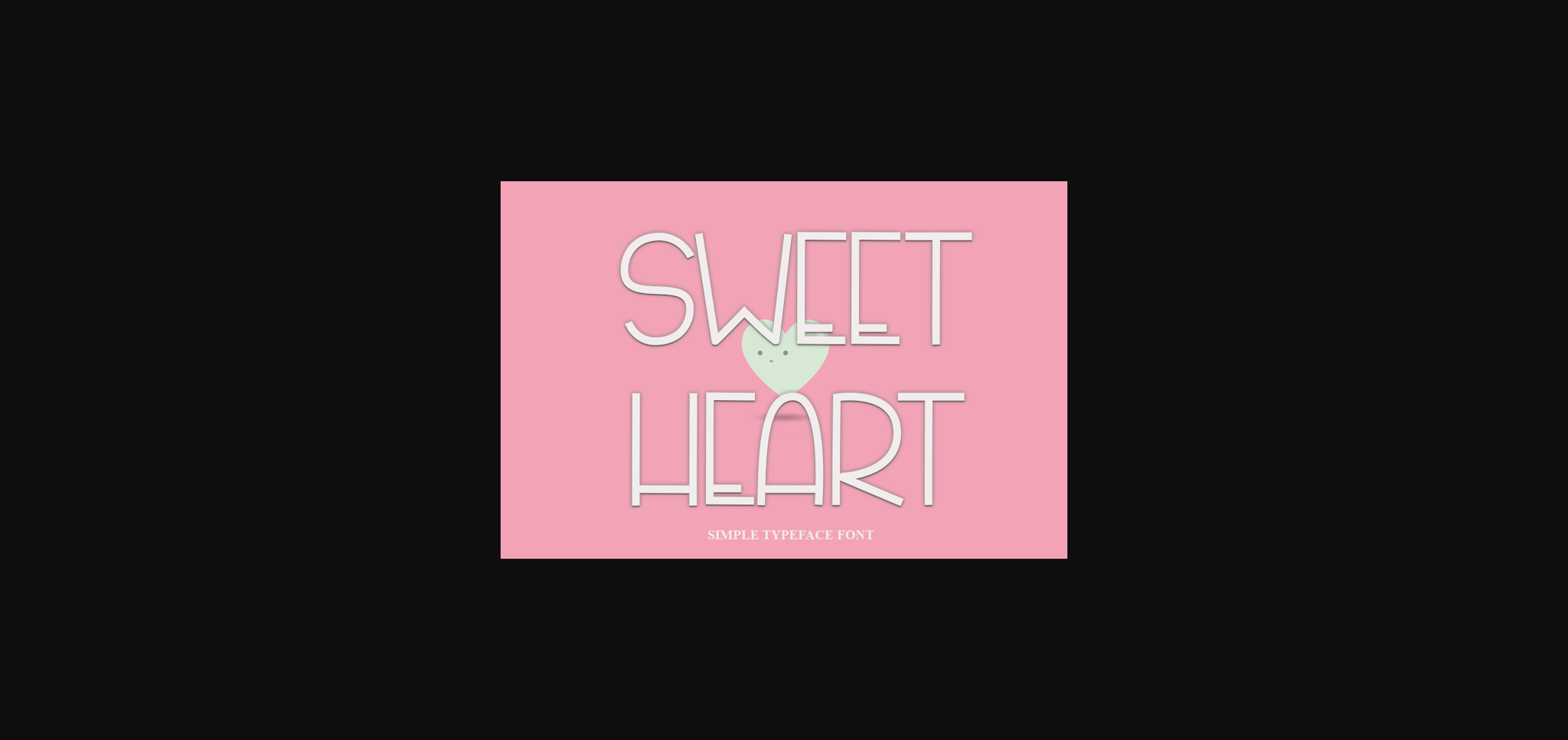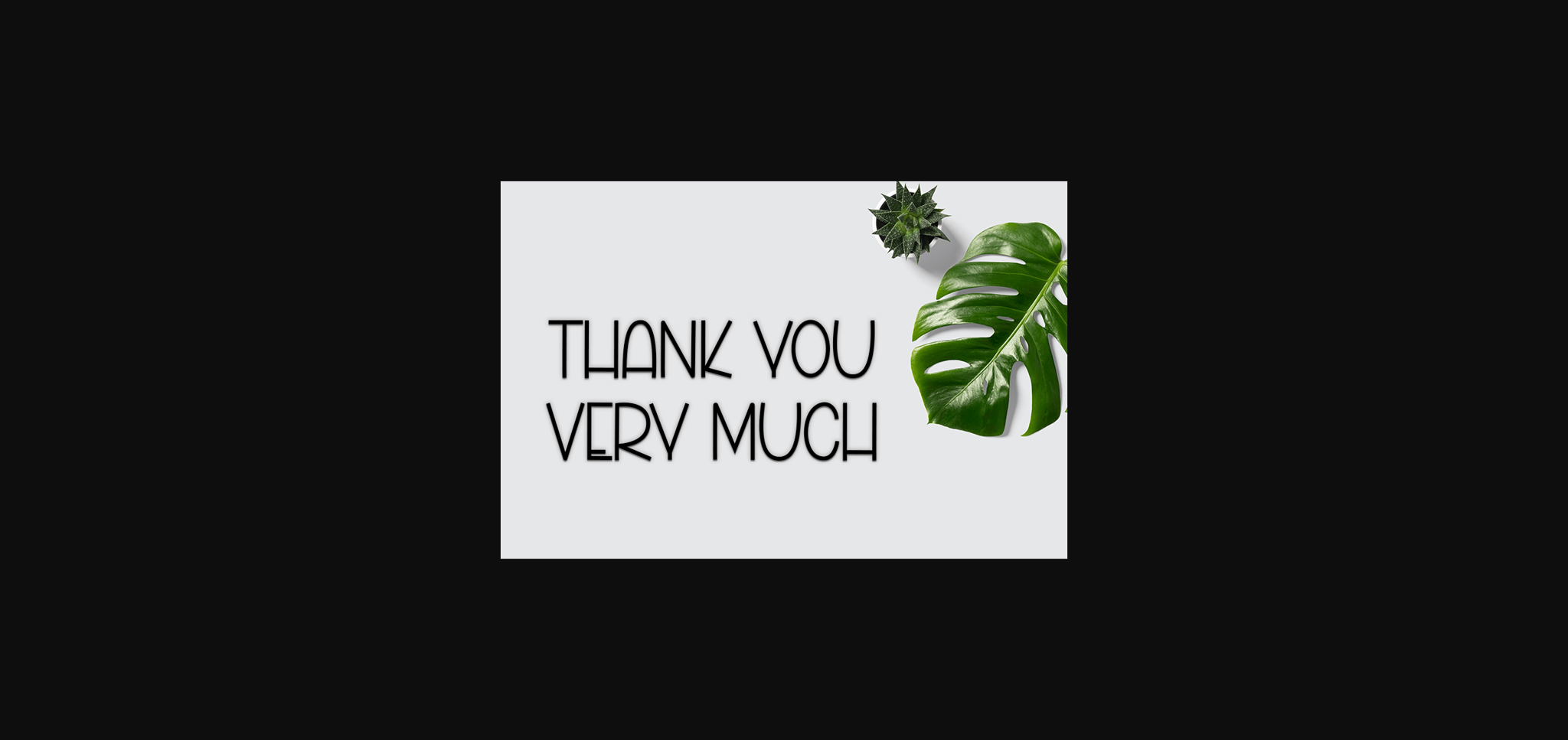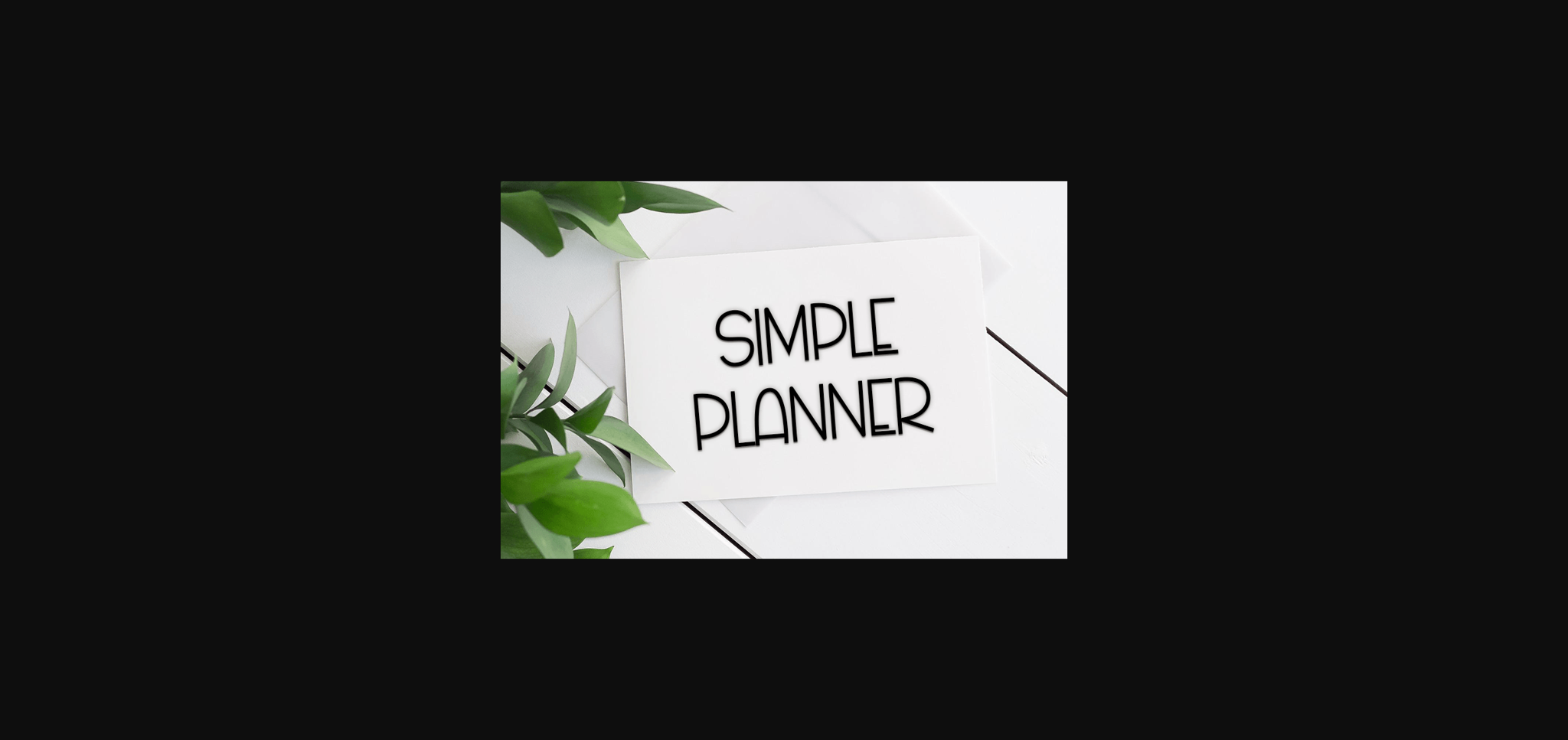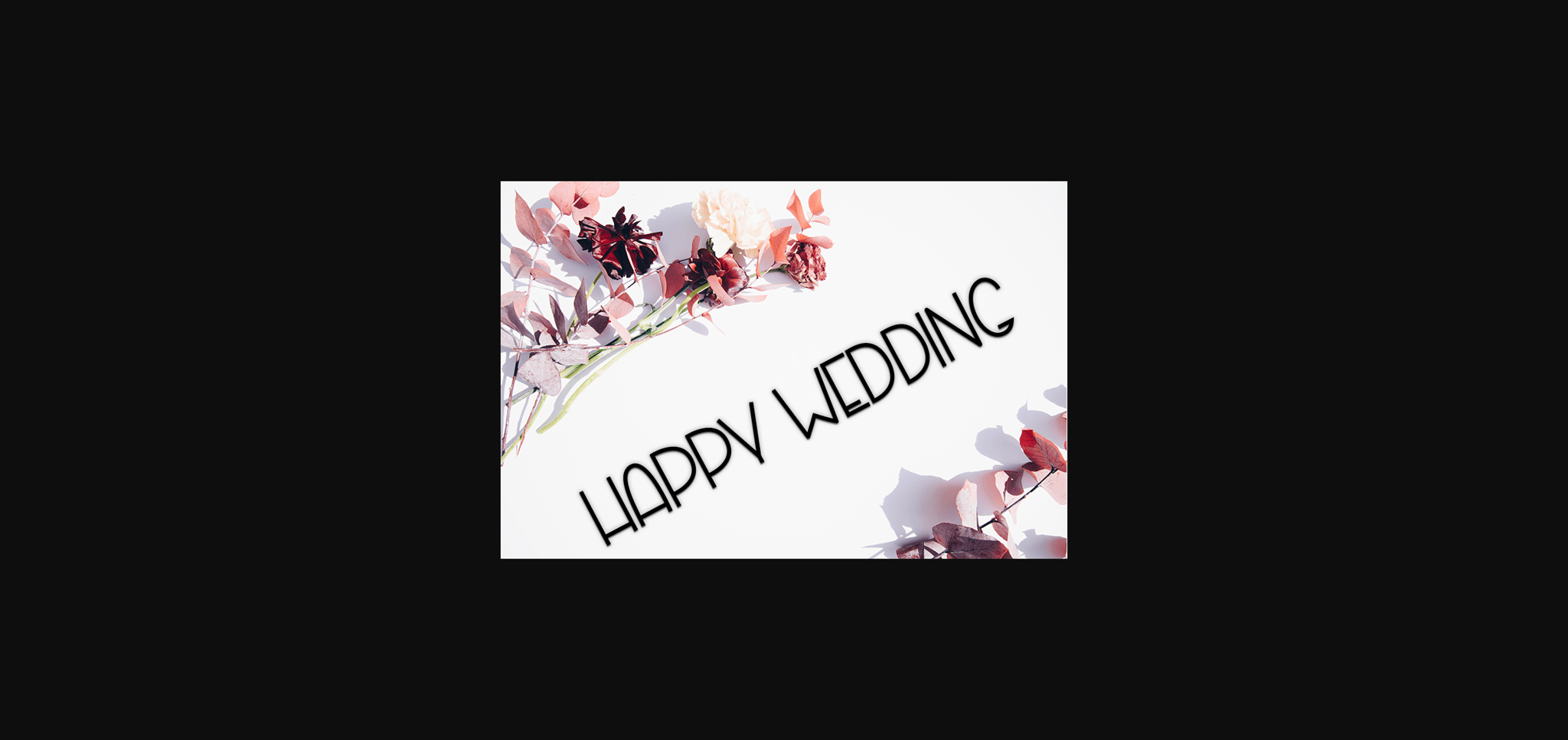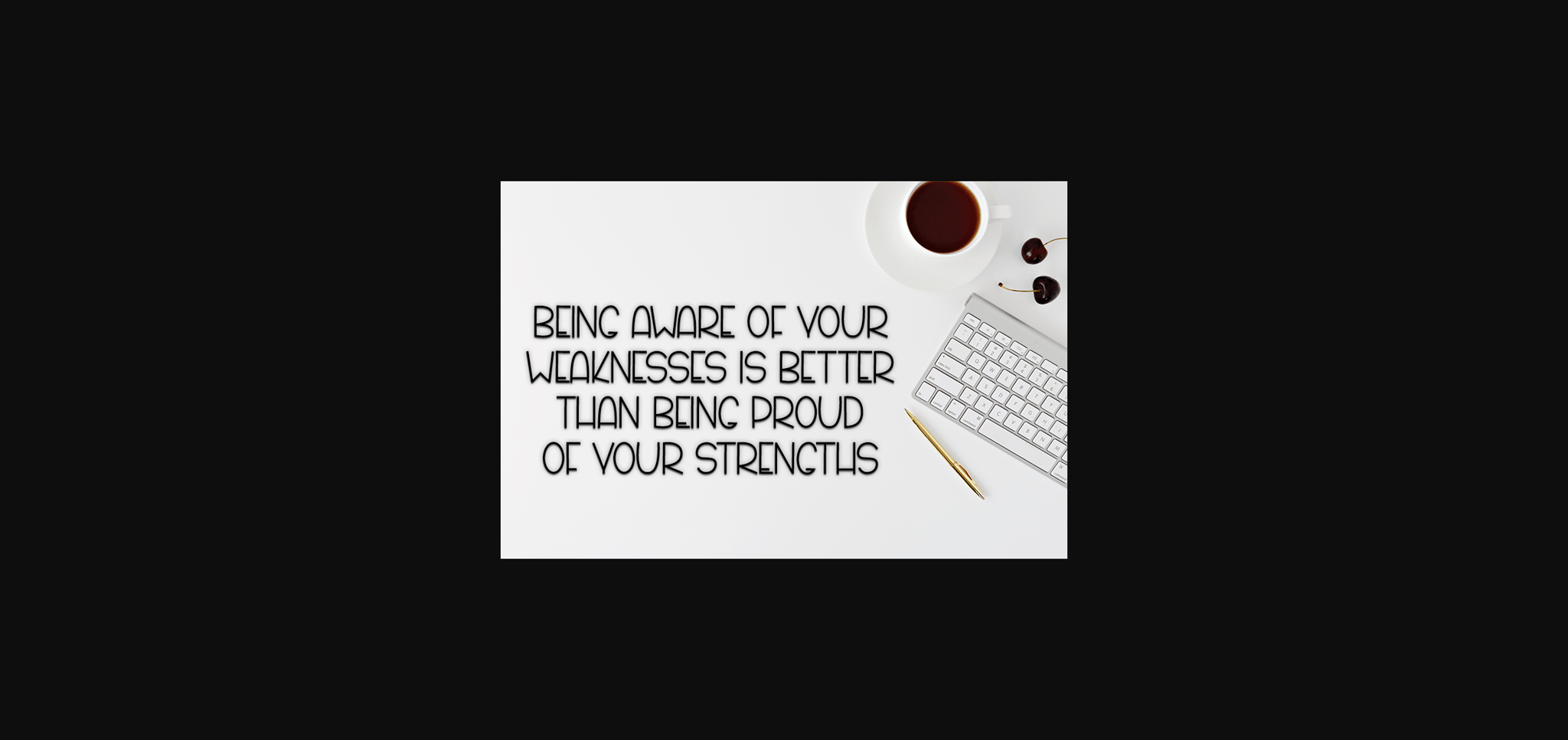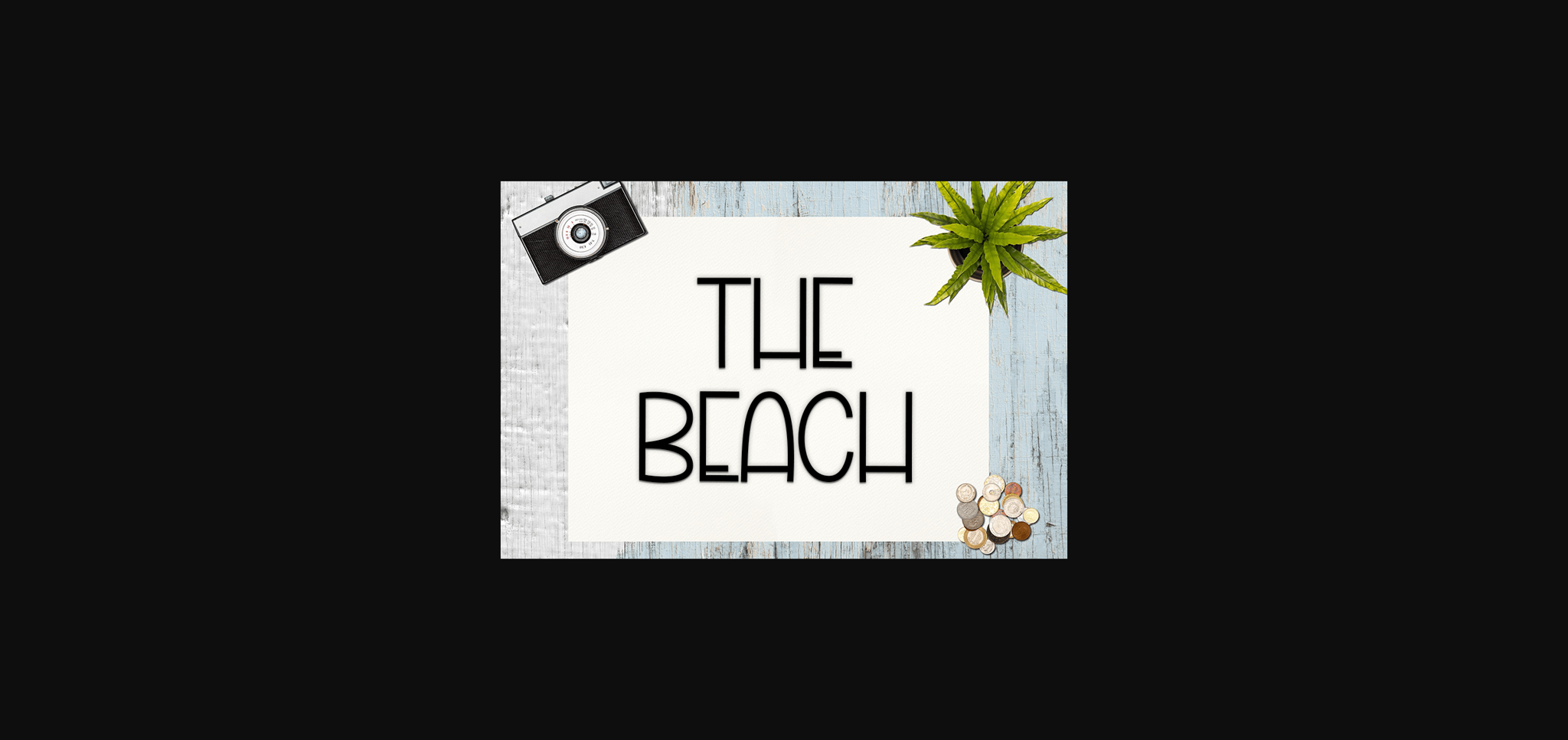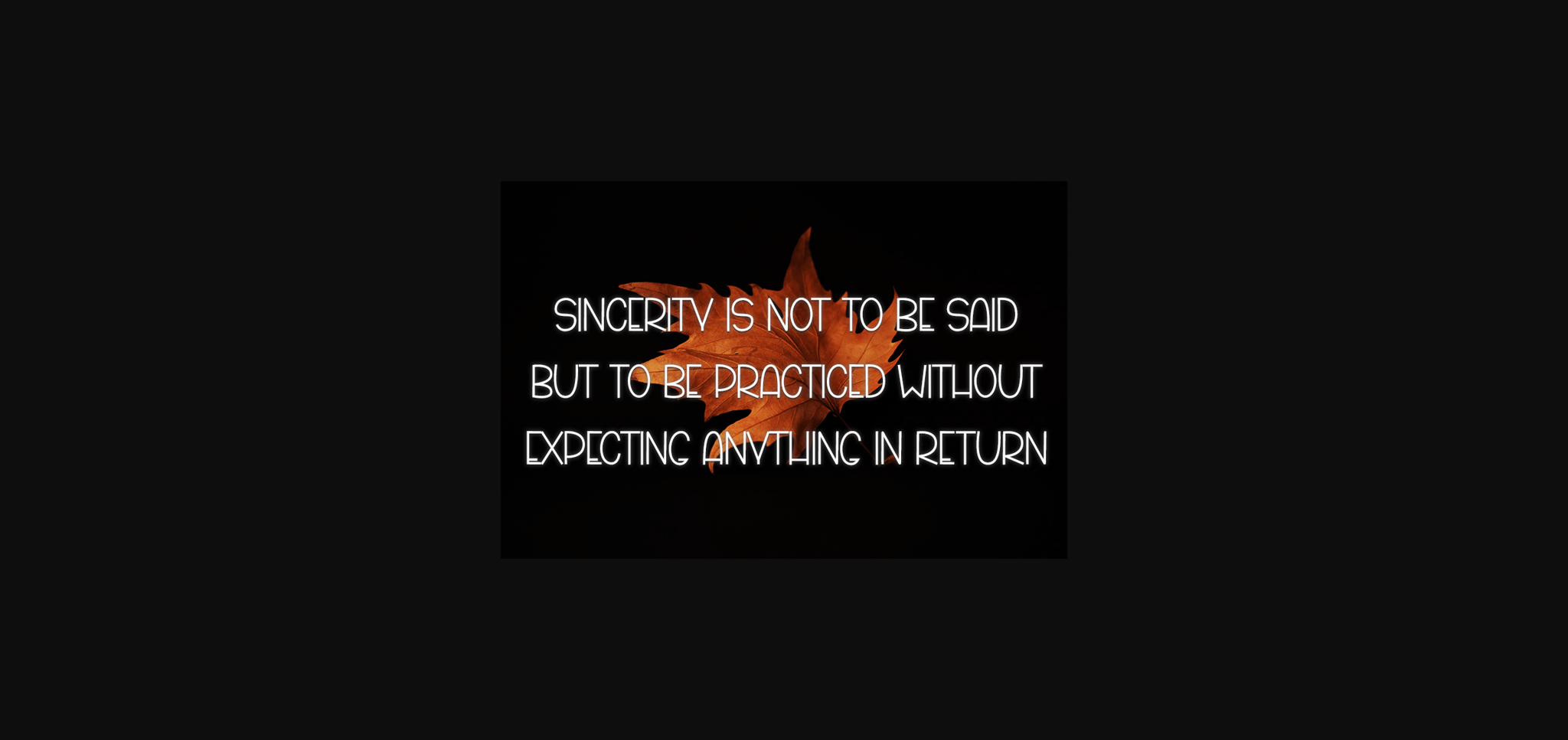
Sweet Heart Font
About Sweet Heart Font
Sweet Heart is a cool and modern sans-serif font. Whether you’re using it for crafts, digital design, presentations, or making greeting cards, this font has the potential to become your favorite go-to font, no matter the occasion!